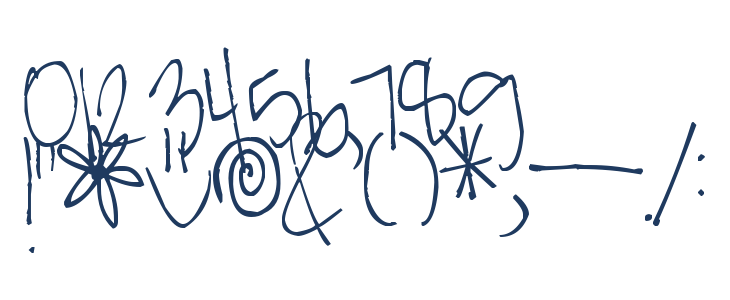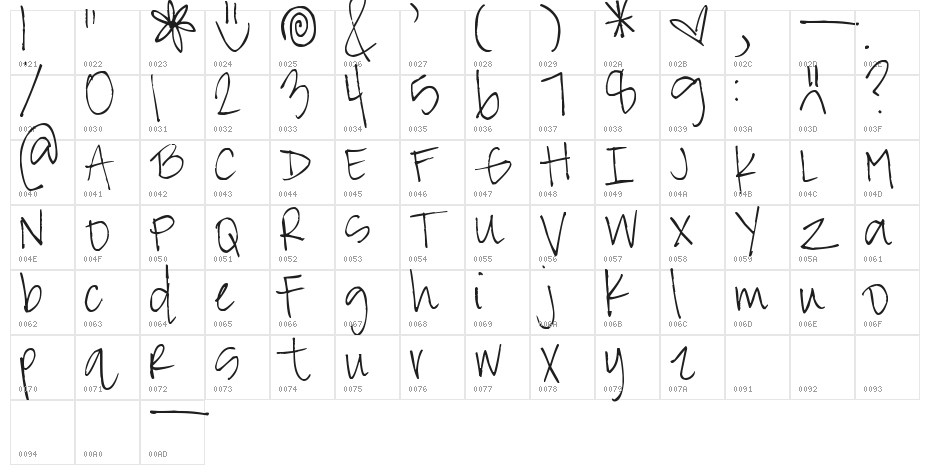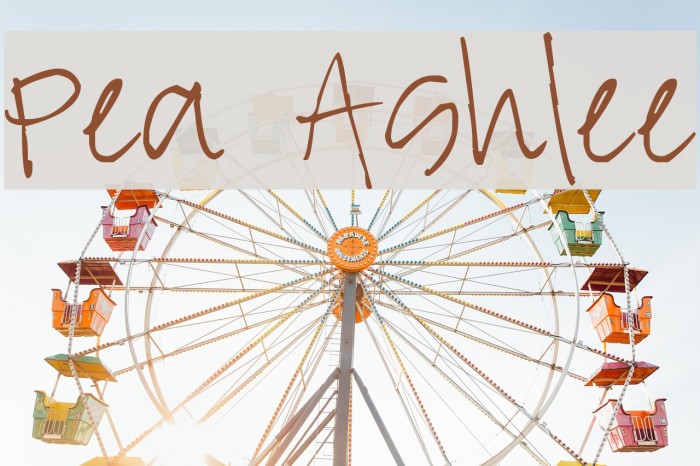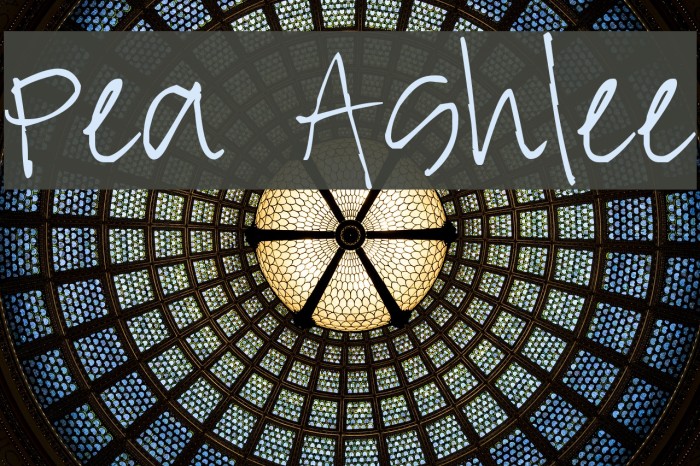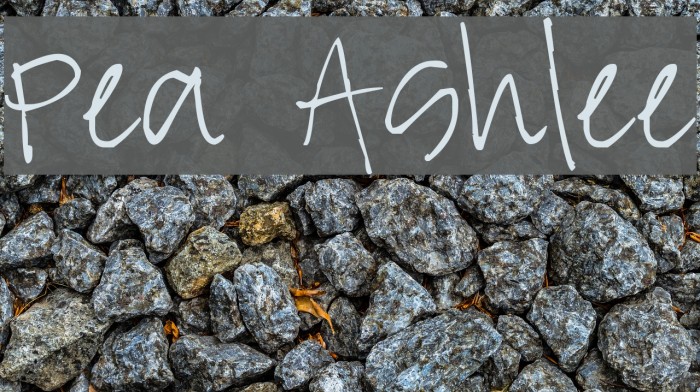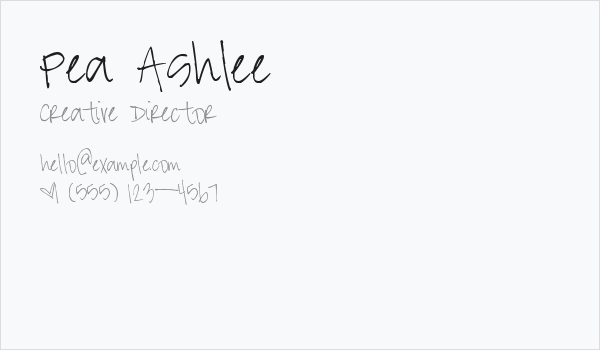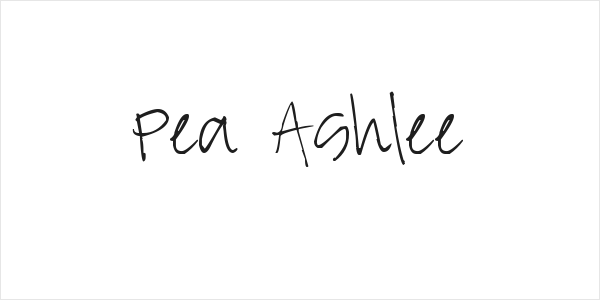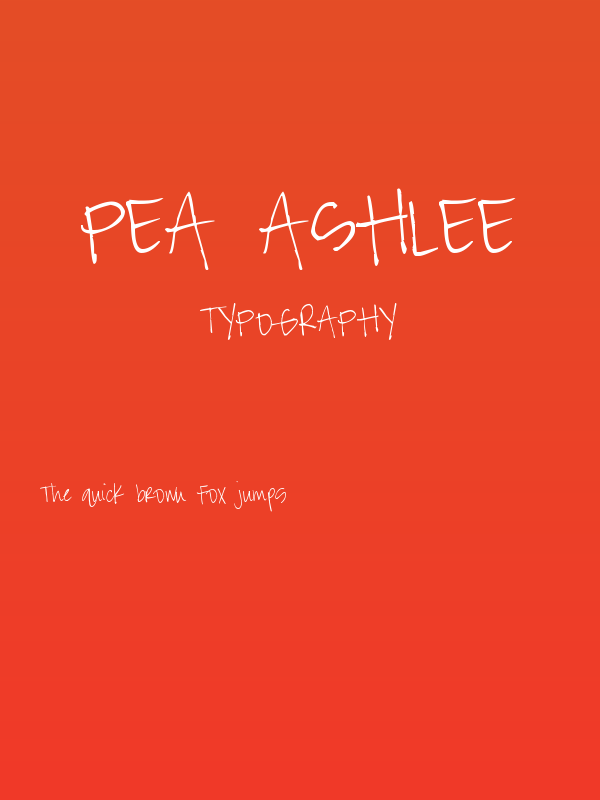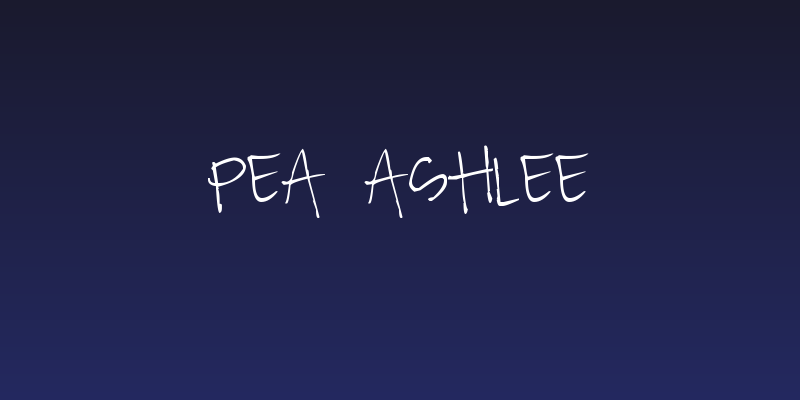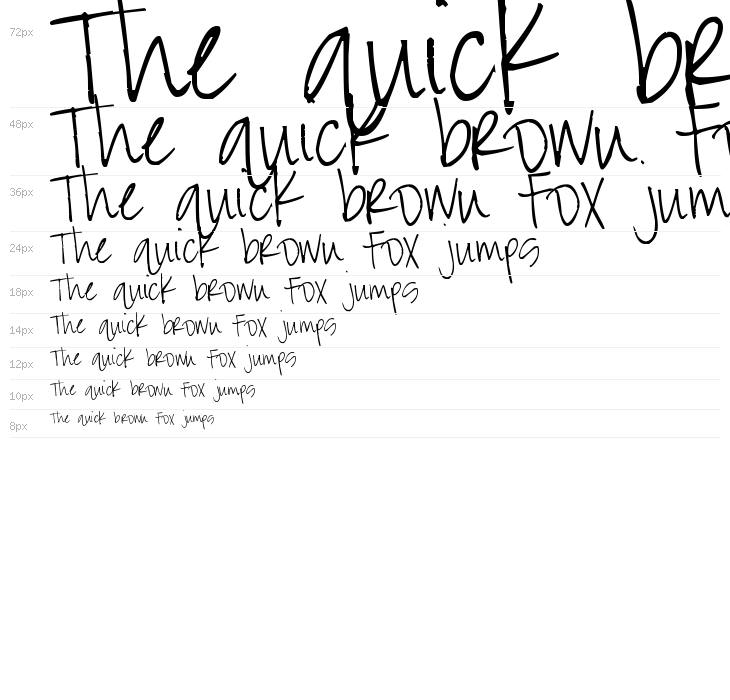
Pea Ashlee Font
Pea Ashlee Description
This font exudes a playful and casual handwritten style, characterized by its loose, freeform strokes that mimic the natural flow of handwriting. The letters are unevenly spaced, adding to the informal and whimsical feel. The uppercase and lowercase letters maintain a consistent style, with some letters featuring unique flourishes and loops. The numbers and special characters follow the same playful aesthetic, making the font versatile for creative projects. Its overall appearance is approachable and friendly, ideal for designs that require a personal touch.
| Use Case | Logos, Headlines, Informal Text |
| Proposed Projects | Ideal for greeting cards, personal notes, children's books, and playful branding projects. |